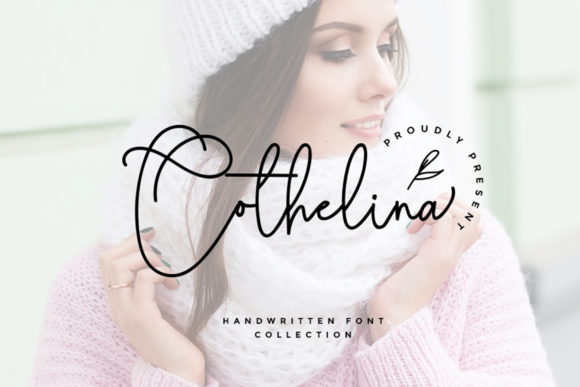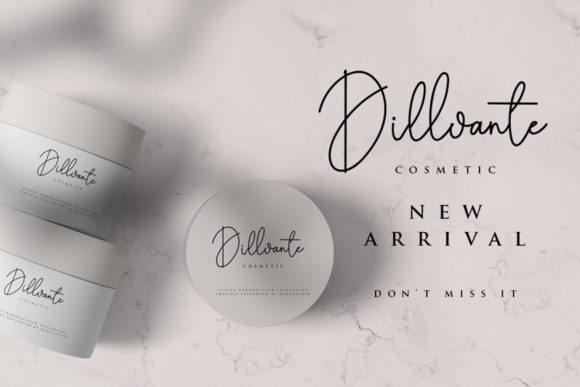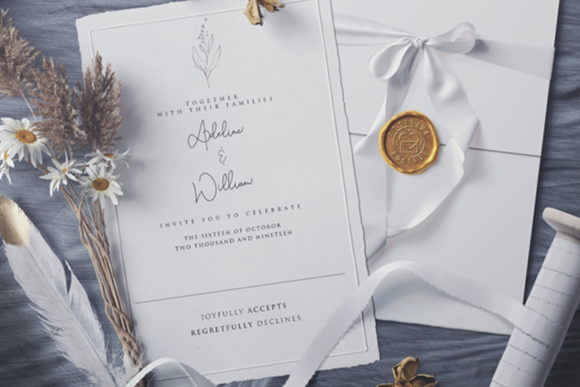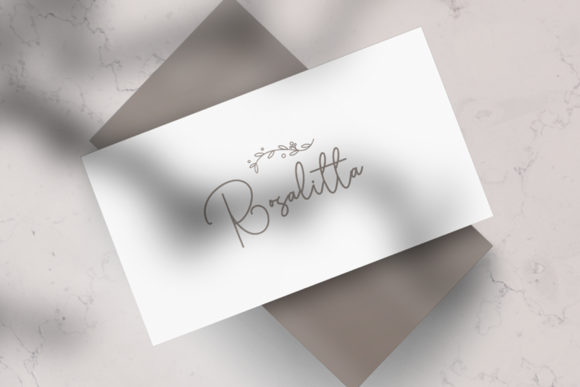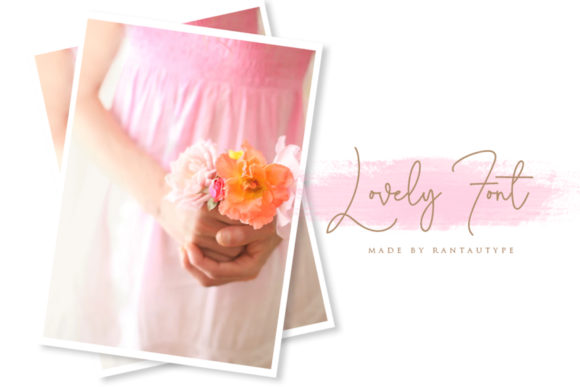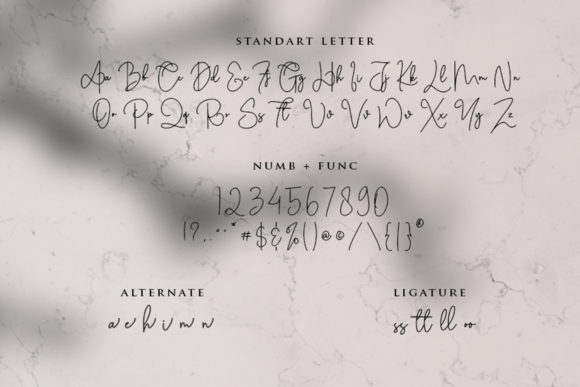
HomeScript FontsCothelina Font Script Fonts Cothelina Font FacebookXPinterestWhatsApp Cothelina Font Poster 2 Cothelina Font Poster 3 Cothelina Font Poster 4 Cothelina Font Poster 5 Cothelina Font Poster 6 About Cothelina Font Cothelina is a charming and sophisticated script that will turn any design project into a true standout! DOWNLOAD ON CREATIVE FABRICAThis font is sold and delivered by Creative Fabrica. Font Canyon may earn a commission if you buy through this link. People also explored Bovely Cintaly Stalila Oneday Font Austin Font Hallo Handmade Font Dontheus Font Ericken Font Gotto Font Corradine Handwriting 302 0 TagsCothelina Font Previous articleRietha FontNext articleQalistha Font LEAVE A REPLY Cancel reply Comment: Please enter your comment! Name:* Please enter your name here Email:* You have entered an incorrect email address! Please enter your email address here Website: Save my name, email, and website in this browser for the next time I comment. Personal Use Free Blue Highway Personal Use Free Read more about this font Blessed Font Personal Use Free Read more about this font Cinderella Personal Use Free Read more about this font Sweet Beautiful Personal Use Free Read more about this font BLOG Transform Your Website: Elevate Your Typography with 7 Best Web Font Generators Are you ready to transform your website's typography from ordinary to extraordinary? Great! Today, we're diving into the world of web font generators, which... Using Fonts in Digital Marketing: Tips to Strengthen Your Brand Identity Best Fonts for YouTube Videos: Make Your Thumbnails Stand Out Free vs Paid Fonts: Why Investing in Premium Fonts Is Worth It